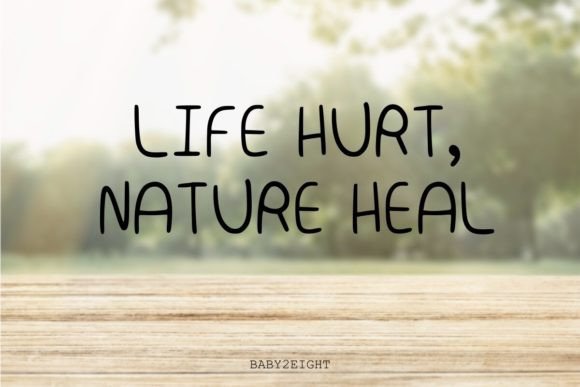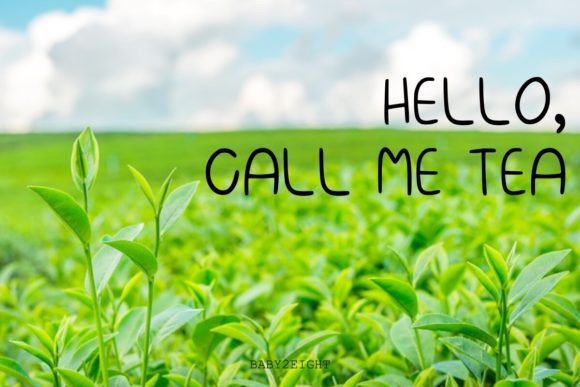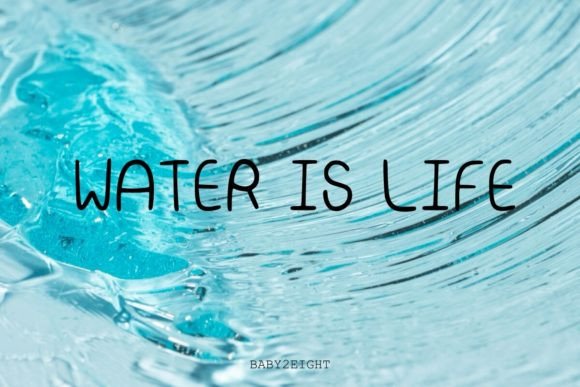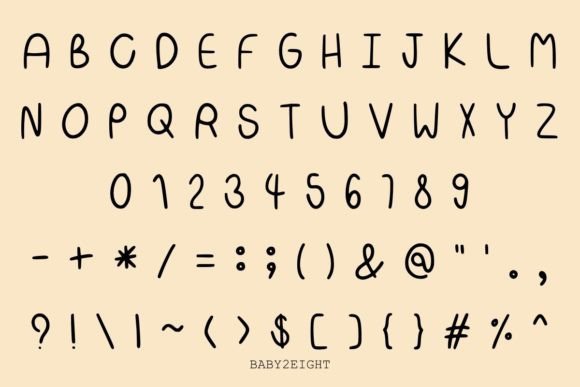
Write from the Heart with Ballpoint Font
Have you ever found yourself scribbling down a quick note to a friend or family member, letting your pen dance across the page as you pour your thoughts onto paper? The unscripted, handwritten style that emerges is often the most genuine and heartfelt way to communicate. This is the essence of Ballpoint Font, a charming handwritten font designed to capture the essence of spontaneous, handwritten notes.
Ballpoint Font is the perfect tool for designers looking to add a touch of warmth and personality to their work. Whether it’s a greeting card, gift label, or social media post, this font infuses every message with a sense of joy and nostalgia. Its breezy, casual style makes every word feel personal and approachable, creating a lasting impression on the reader.
By incorporating Ballpoint Font into your design, you’ll be able to evoke a sense of delight and coziness in your audience, making your messages truly unforgettable.
Key Features of Ballpoint Font
- Size: Ballpoint Font is available in 4 different font sizes: Light, Regular, Bold, and Extra Bold, making it suitable for various design applications.
- Unique Characteristics: Ballpoint Font is designed to mimic the aesthetic of a ballpoint pen, with a distinctive, hand-written feel and subtle texture, giving it a unique and personalized touch.
- Resolution: Ballpoint Font is designed to be scalable, making it suitable for use at various resolutions, from low-resolution screens to high-resolution printing.
- Language Support: Ballpoint Font supports a wide range of languages, including Latin, Cyrillic, and Greek, making it a versatile font for global design applications.
- Font Pairing: Ballpoint Font is designed to pair well with a variety of font families, making it easy to create visually appealing and harmonious typography.
Ballpoint Font Review
Overall, I think Ballpoint Font has some great qualities that make it worth considering for certain projects. ✨
- Ballpoint Font’s unique, handwritten feel adds a personal touch to digital content.
- It’s available in a wide range of weights, making it easy to customize the font for different uses.
- The font is relatively legible, even at smaller font sizes.
- ⚠️ Ballpoint Font can be challenging to read at very large font sizes, as the irregularities in the font’s design can become overwhelming.
- ⚠️ Some characters, like the uppercase ‘I’ and ‘l’, can be easily confused with one another, which may cause issues in certain contexts.
- ⚠️ The font’s irregularities can make it difficult to pair well with other fonts, which may limit its versatility.
Overall impression:
While Ballpoint Font has its limitations, I think it’s a great choice for projects that require a unique, handwritten feel. With some careful consideration of its limitations, I think it can be a valuable addition to a designer’s toolkit.
Ballpoint Font is ideal for creating informal, handwritten-style text that adds a personal touch to designs. Use it in:
- Personalized invitations and cards
- Handwritten-style blog posts and articles
- Informal social media graphics and posts
Remember to use Ballpoint Font sparingly and in context to avoid overwhelming the design.